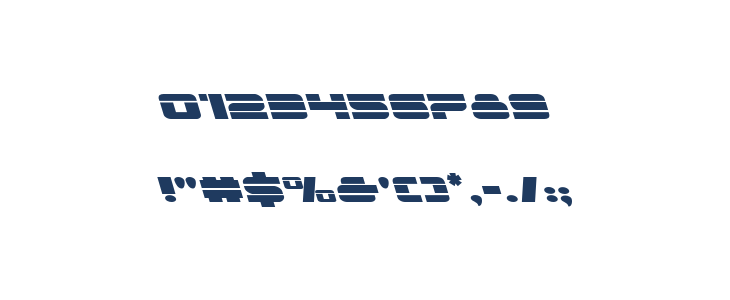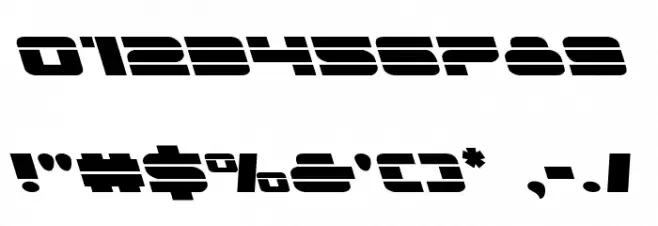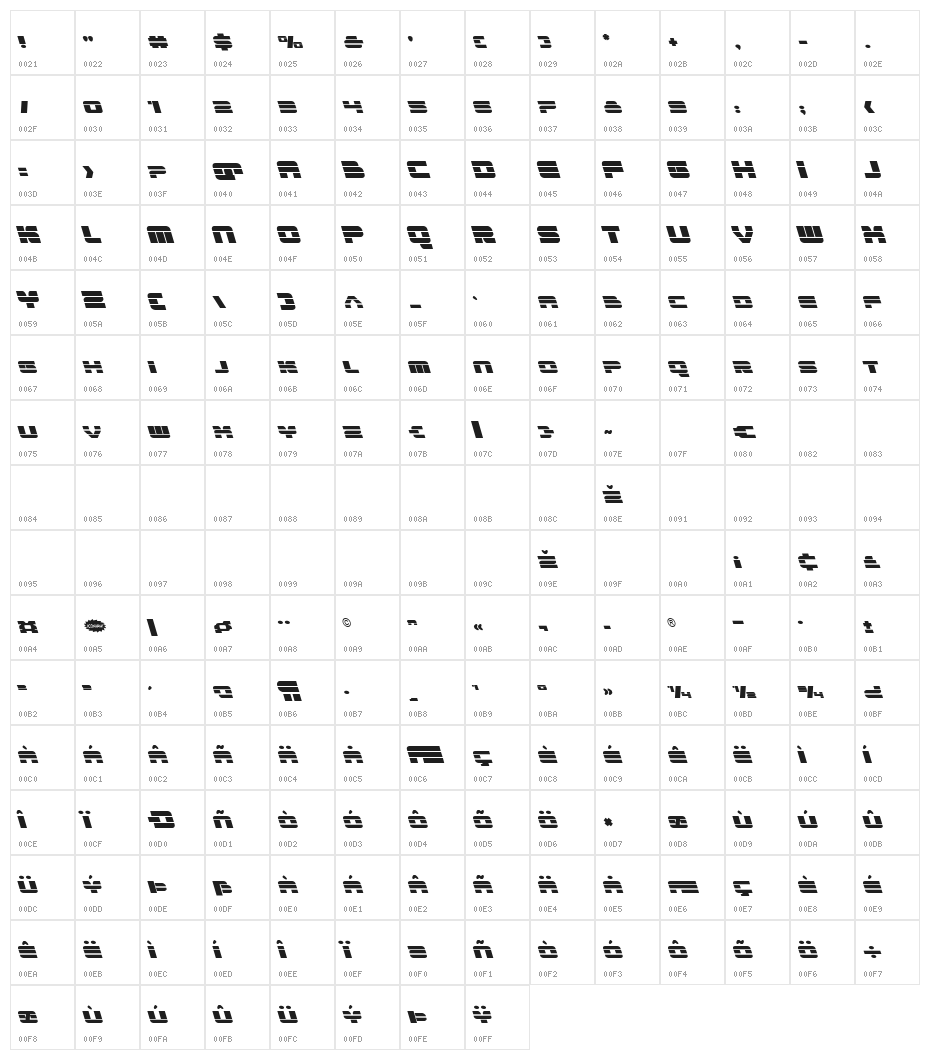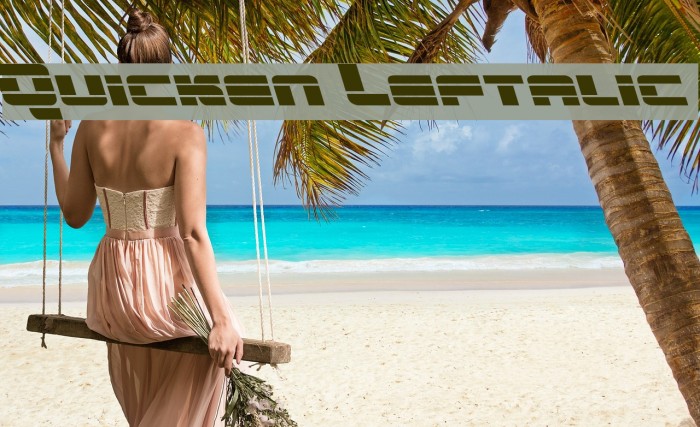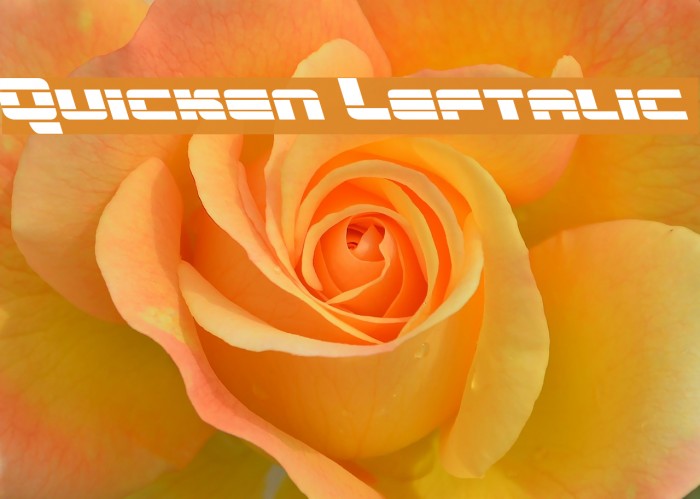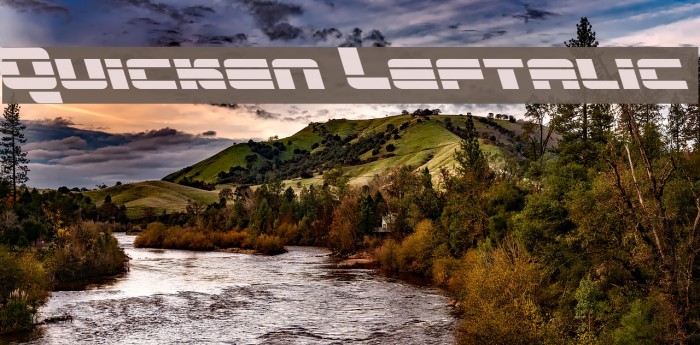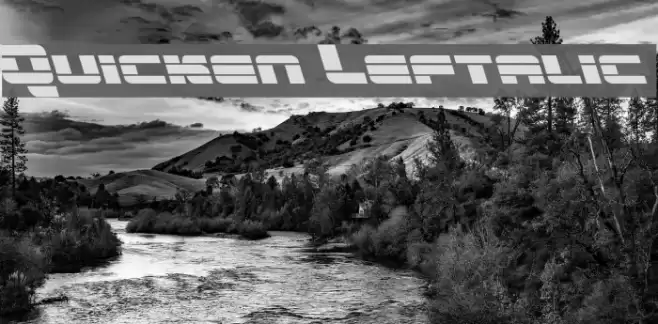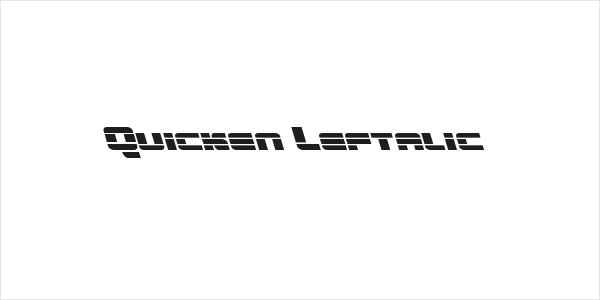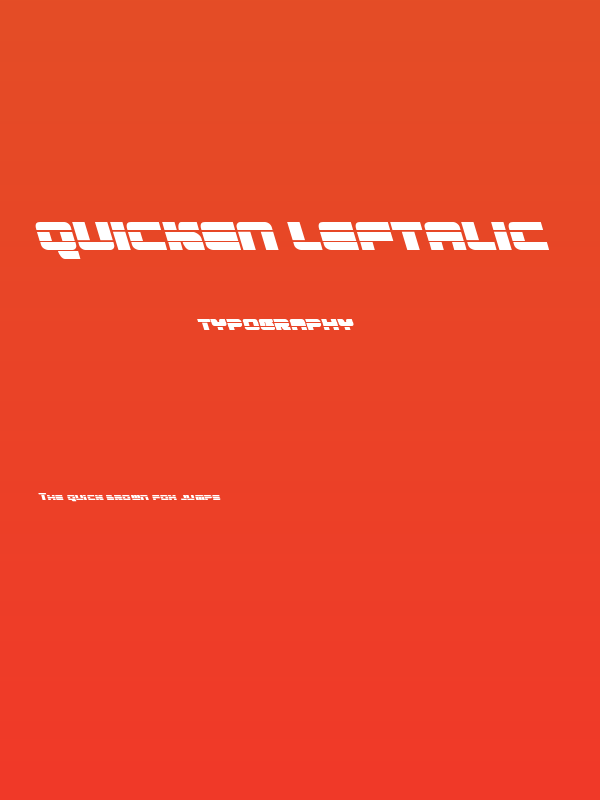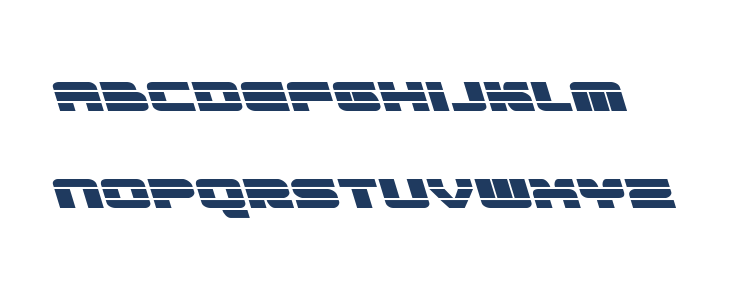
Quicken Leftalic Font
Quicken Leftalic Description
This font features a bold, futuristic design with a distinct geometric structure. Each character is composed of thick, block-like segments that create a sense of movement and speed. The angular cuts and sharp edges give it a dynamic and modern appearance, making it ideal for attention-grabbing headlines or branding. The uppercase and lowercase letters maintain a consistent style, while the numbers and special characters complement the overall aesthetic. The font's unique style is perfect for projects that require a strong, impactful visual presence.
| Proposed Projects | Ideal for sci-fi themed designs, technology branding, video game titles, and modern advertising campaigns. |